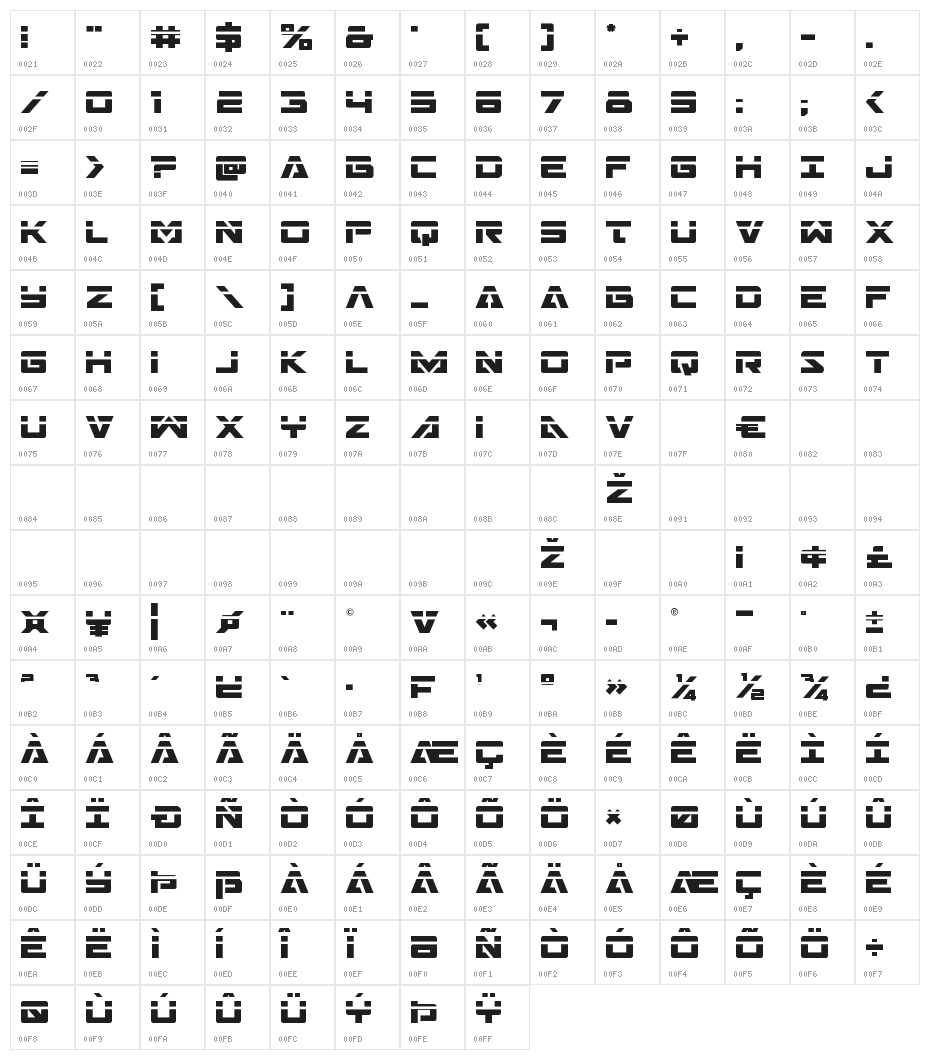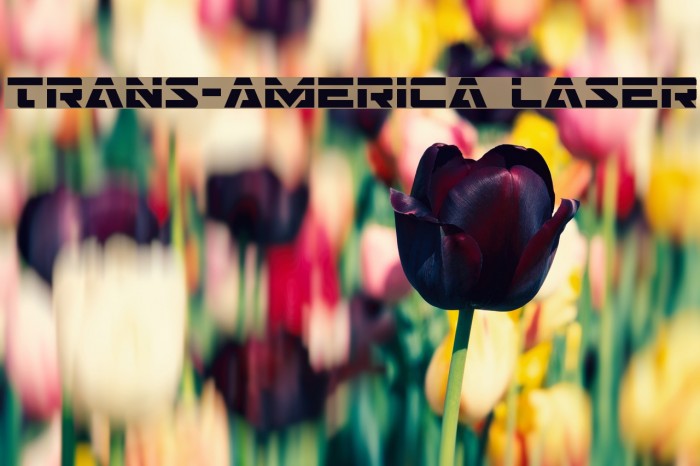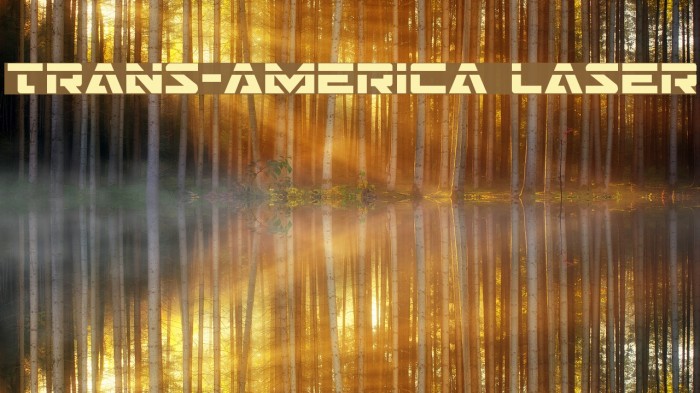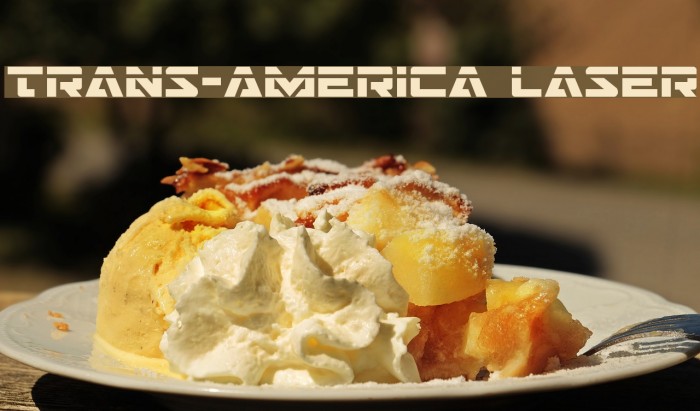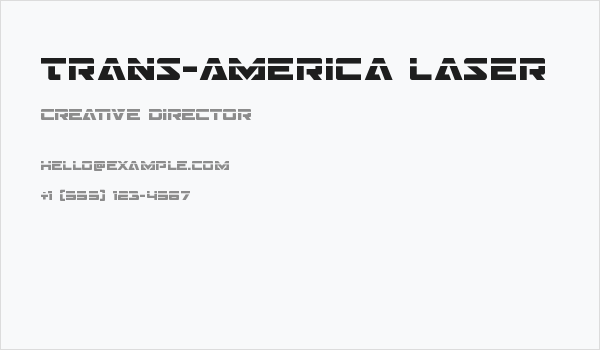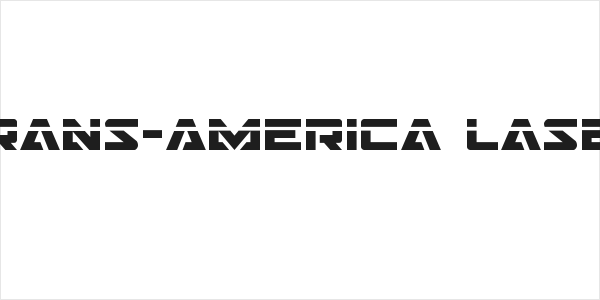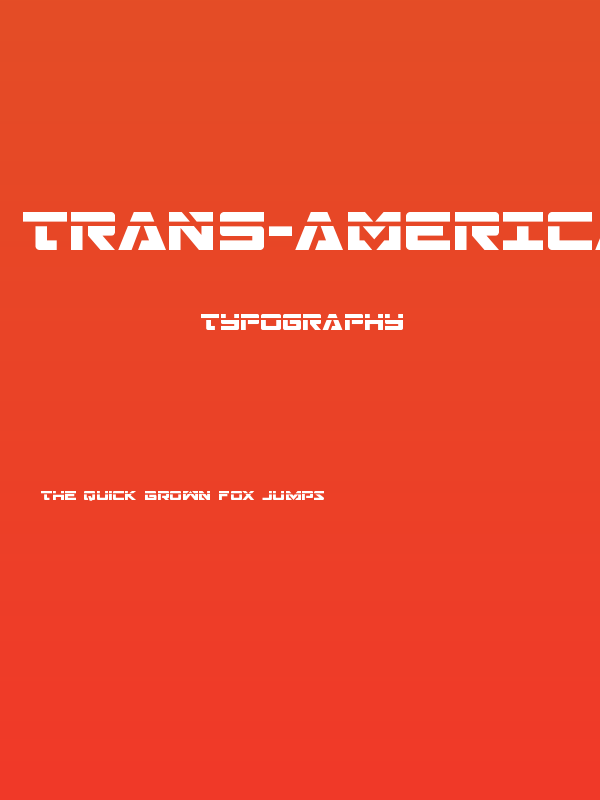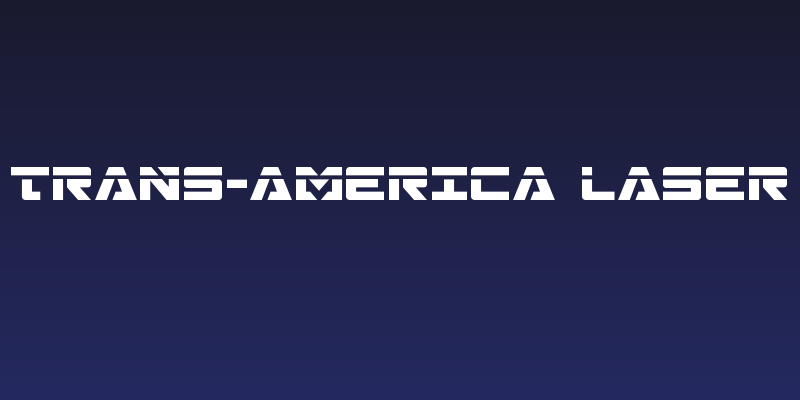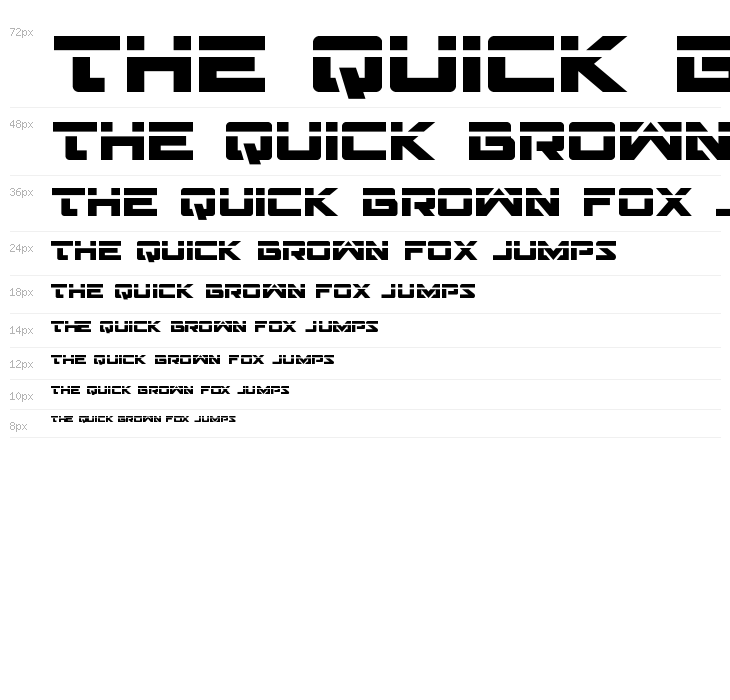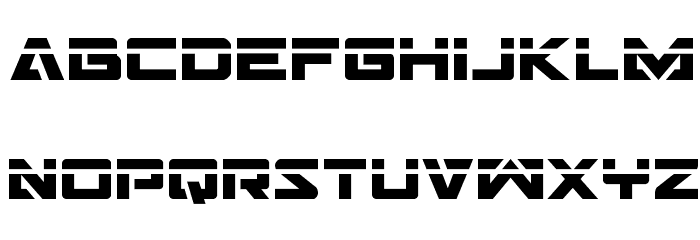
Trans-America Laser Font
Trans-America Laser Description
This font features a bold, futuristic design with geometric shapes and sharp angles. The characters are constructed with a stencil-like appearance, incorporating breaks and cuts that give it a high-tech, industrial feel. The uppercase letters are particularly striking, with a consistent width and a strong presence. The numbers and special characters maintain the same bold style, ensuring uniformity across all glyphs. This font is ideal for projects that require a modern, edgy look, such as technology branding, sci-fi themes, or video game titles.
| Proposed Projects | Ideal for technology branding, sci-fi themes, video game titles, and industrial design projects. |